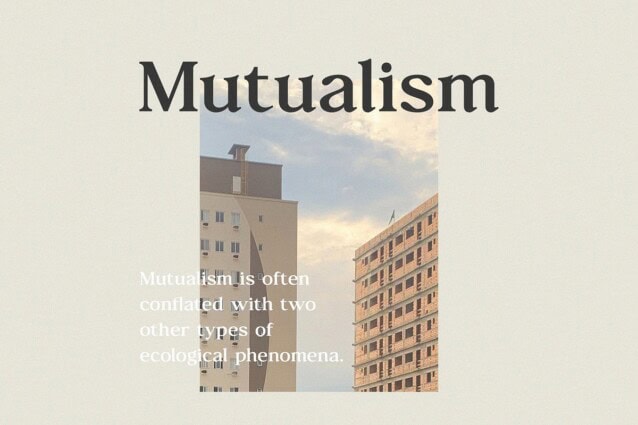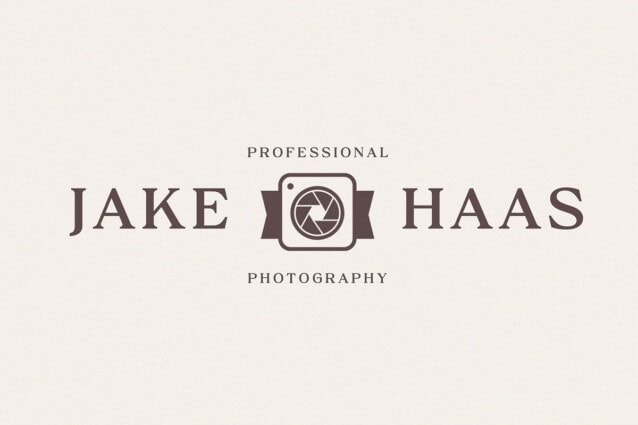
Linguas Font
Linguas Font is an elegant and delicate serif font crafted & designed by Typeformers. Fall in love with its incredibly versatile style and use it to create gorgeous wedding invitations, beautiful stationary art, eye-catching social media posts, and much more!